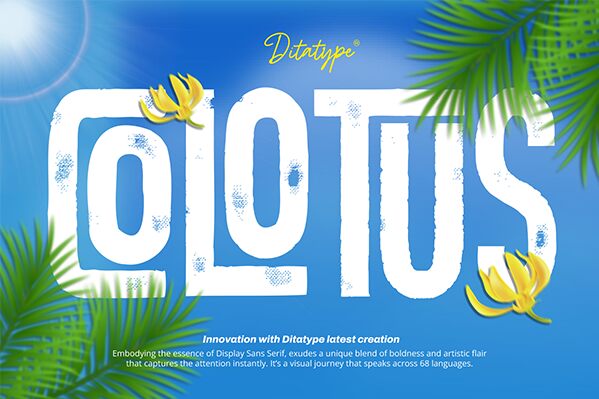
Colotus font by Ditatype is a condensed display font that carries an eroded, distressed appearance. The rugged texture it embodies gives vintage aesthetics reminiscent of retro or grunge designs. This industrially influenced gem can fulfill numerous objectives whether historical or contemporary.
These include music album cover designs, urban branding projects, t-shirt graphics, posters, packaging designs, and more.